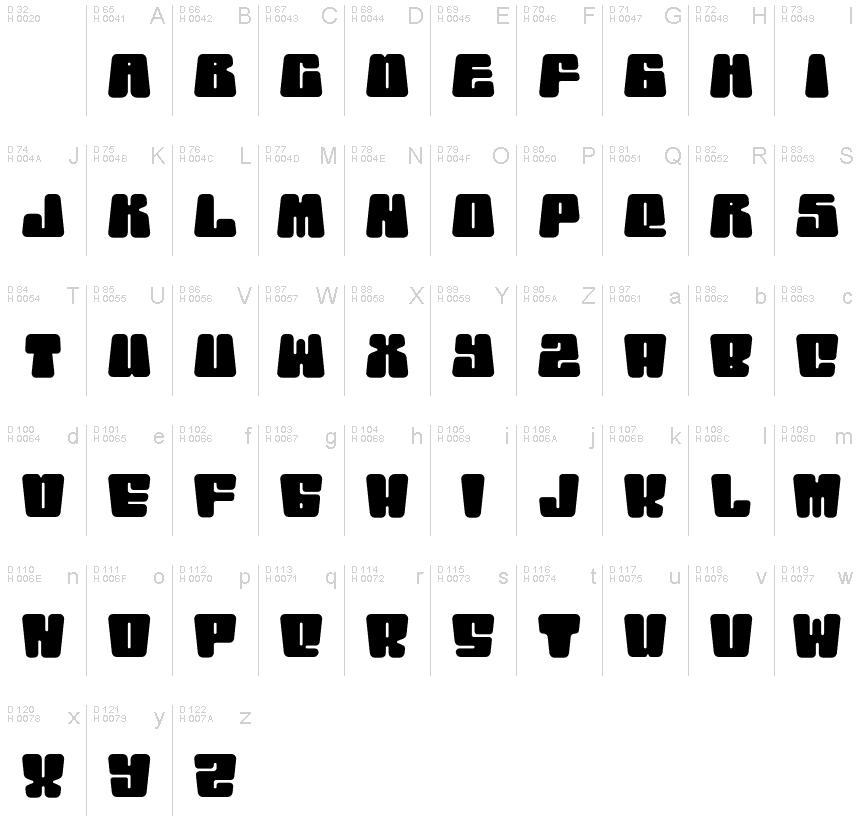
RetroDisco-Wide
Retro Disco Wide is a groovy, extra-bold display font from Dharmas Studio. With its expanded width, this font exudes a sense of energy and fun.
It's perfect for projects that aim to capture the spirit of the disco era, such as party invitations, retro-themed websites, and album covers. Let Retro Disco Wide transport you back to a time of vibrant colors and pulsating beats, adding a touch of nostalgia and personality to your designs.